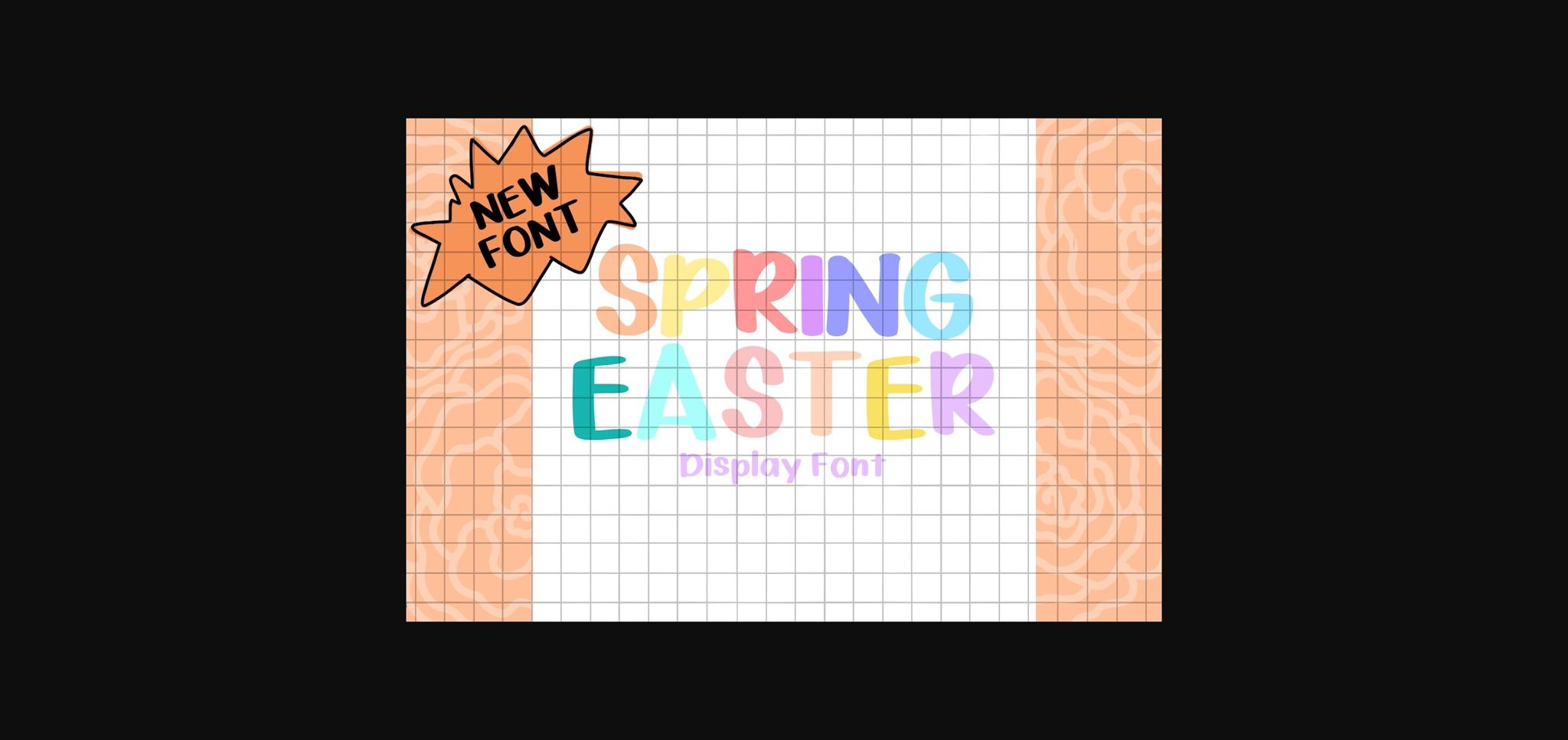
About Spring Easter Font
Spring Easter is a delightful sans-serif font, radiating playful charm and whimsy. Its lively strokes and bouncing letterforms evoke the joy of springtime and Easter festivities. Perfect for adding a cheerful touch to invitations, greeting cards, and designs that celebrate the renewal of the season and holiday spirit.